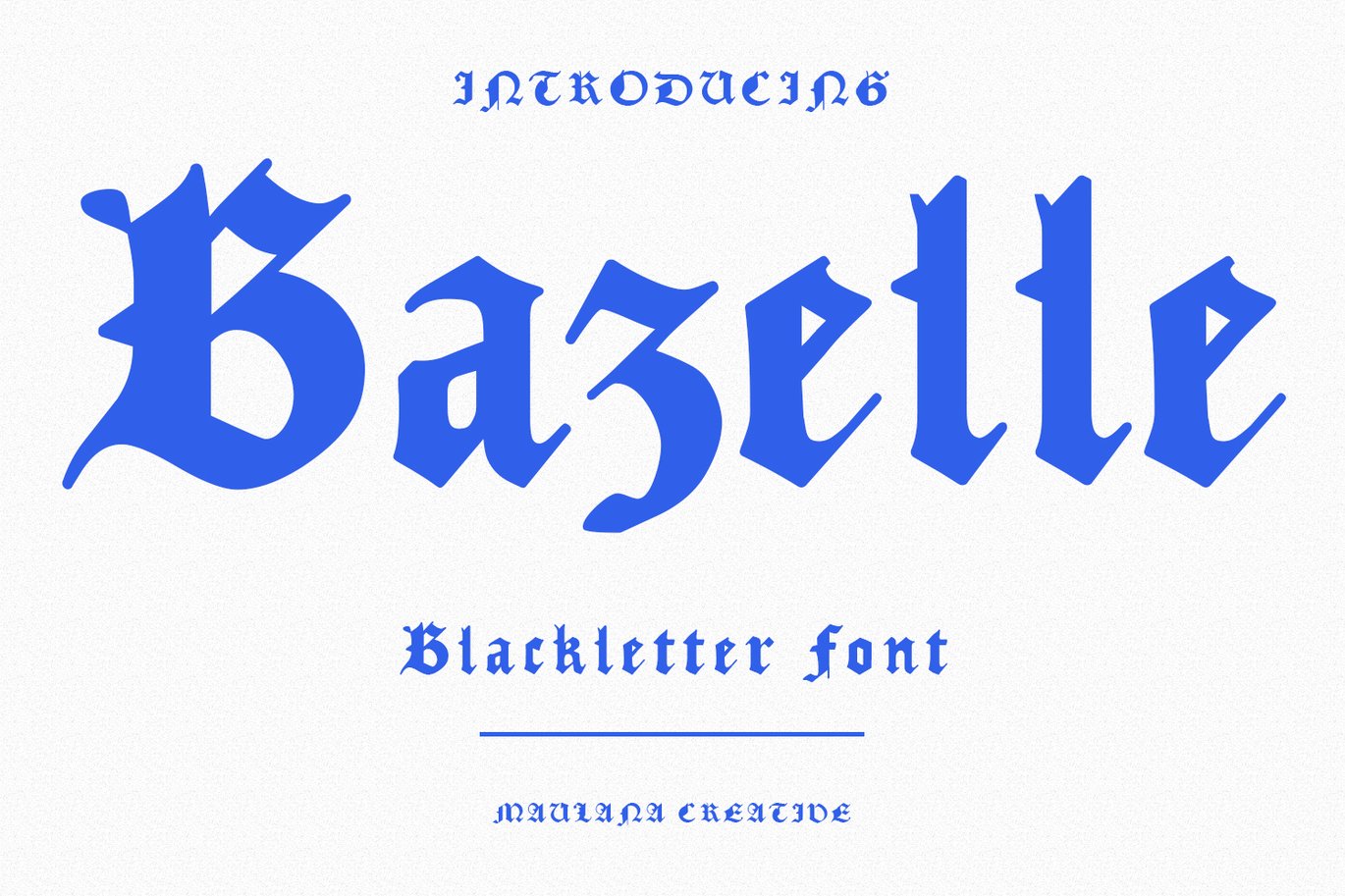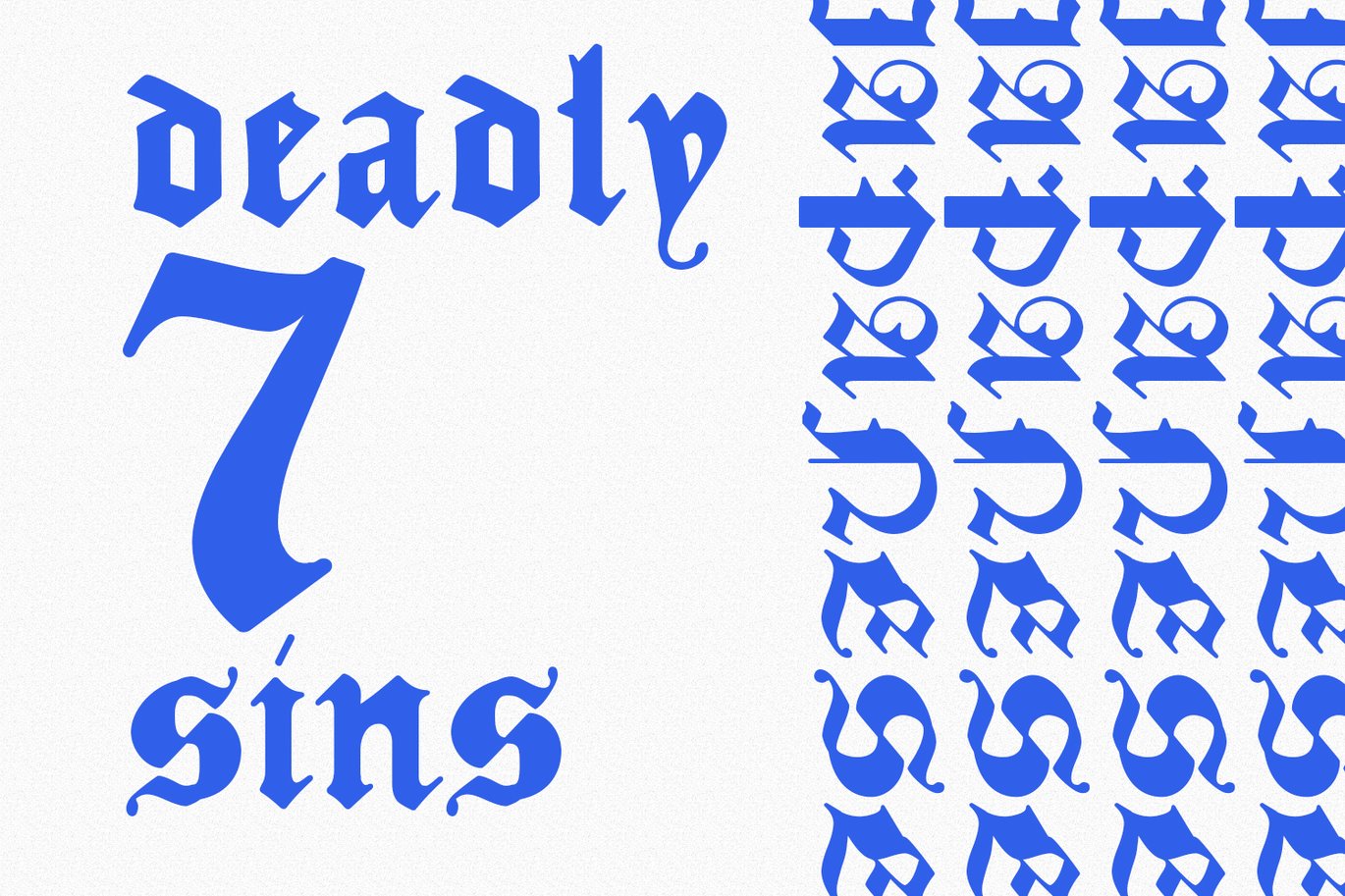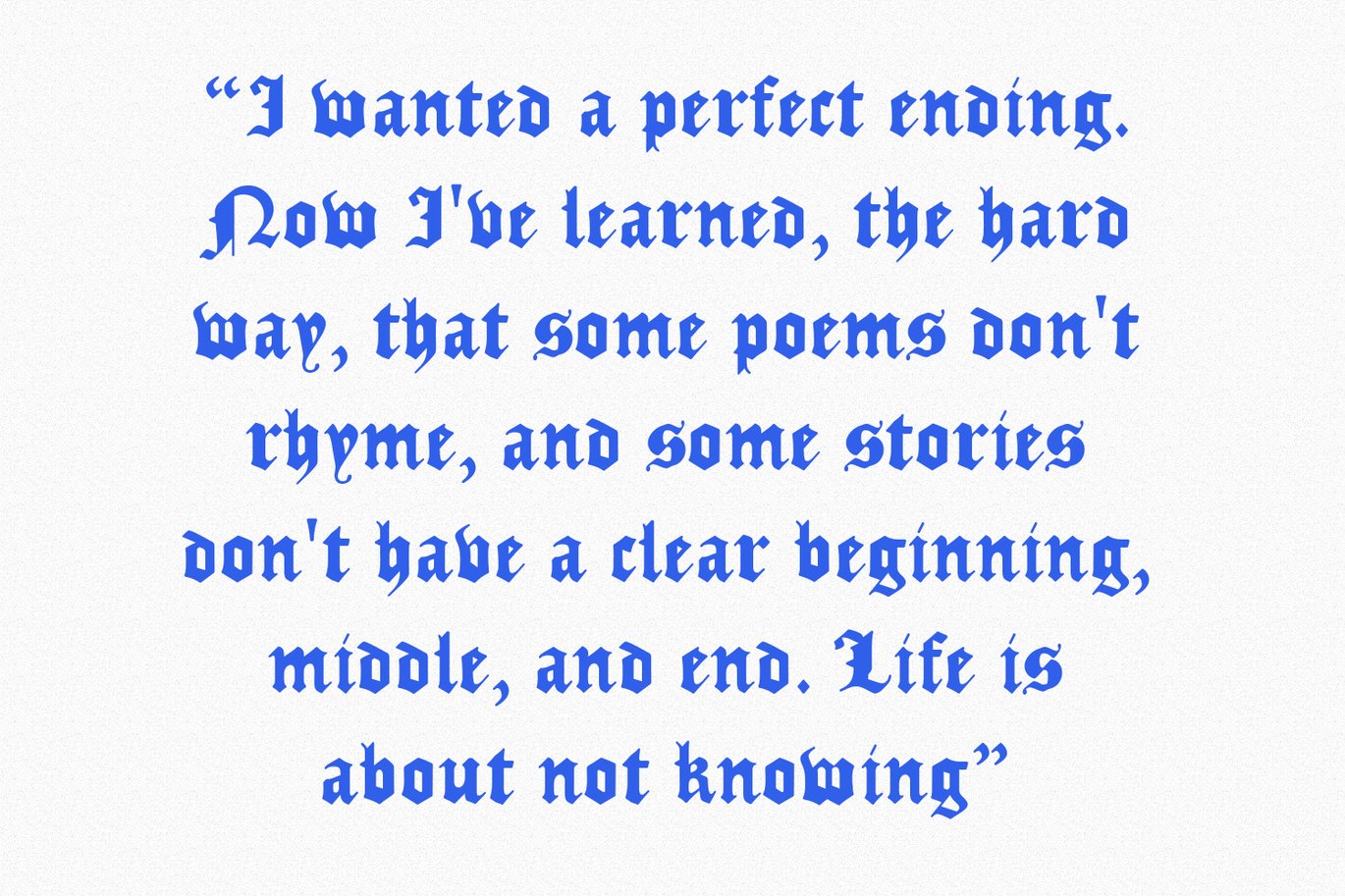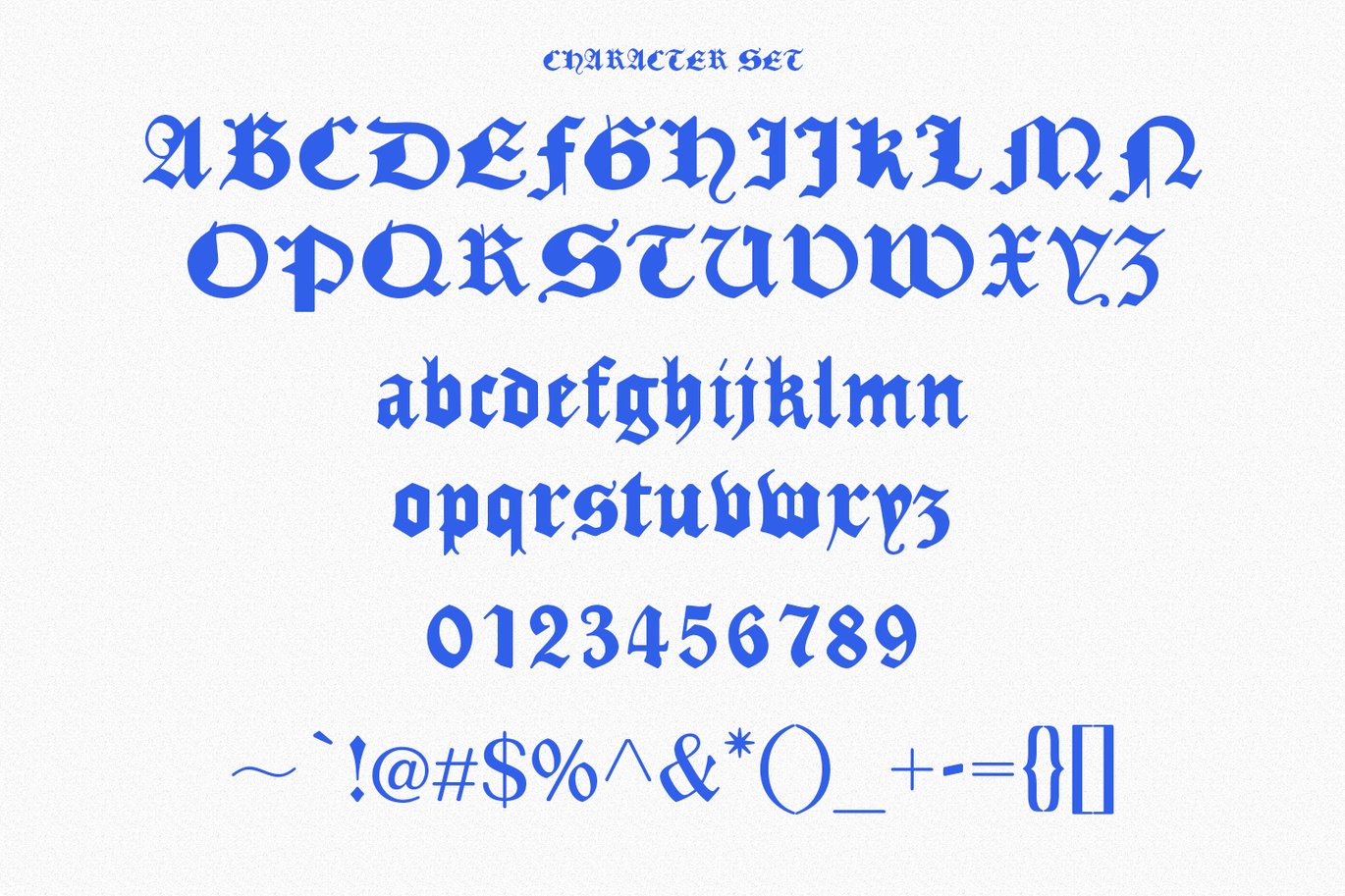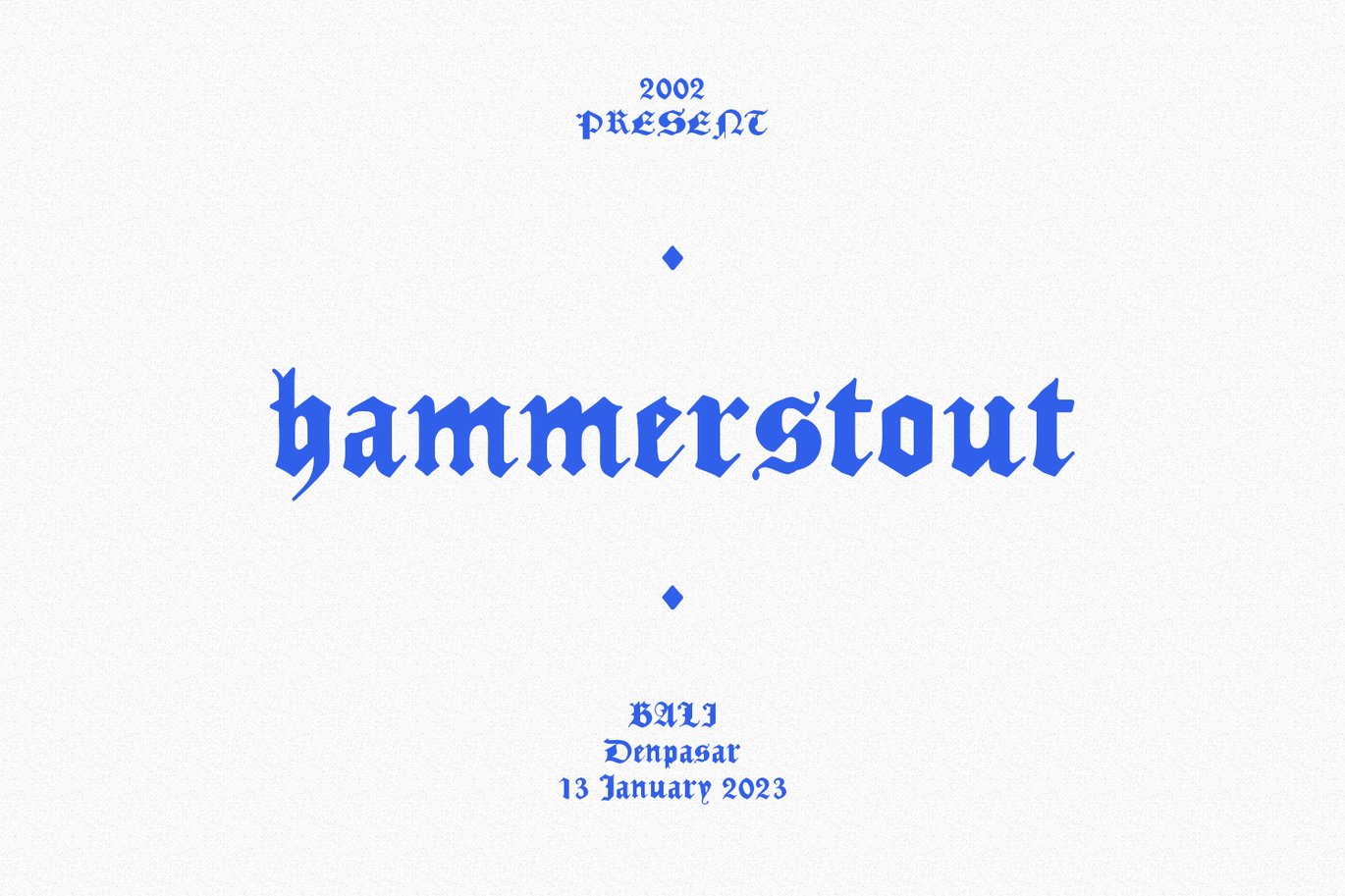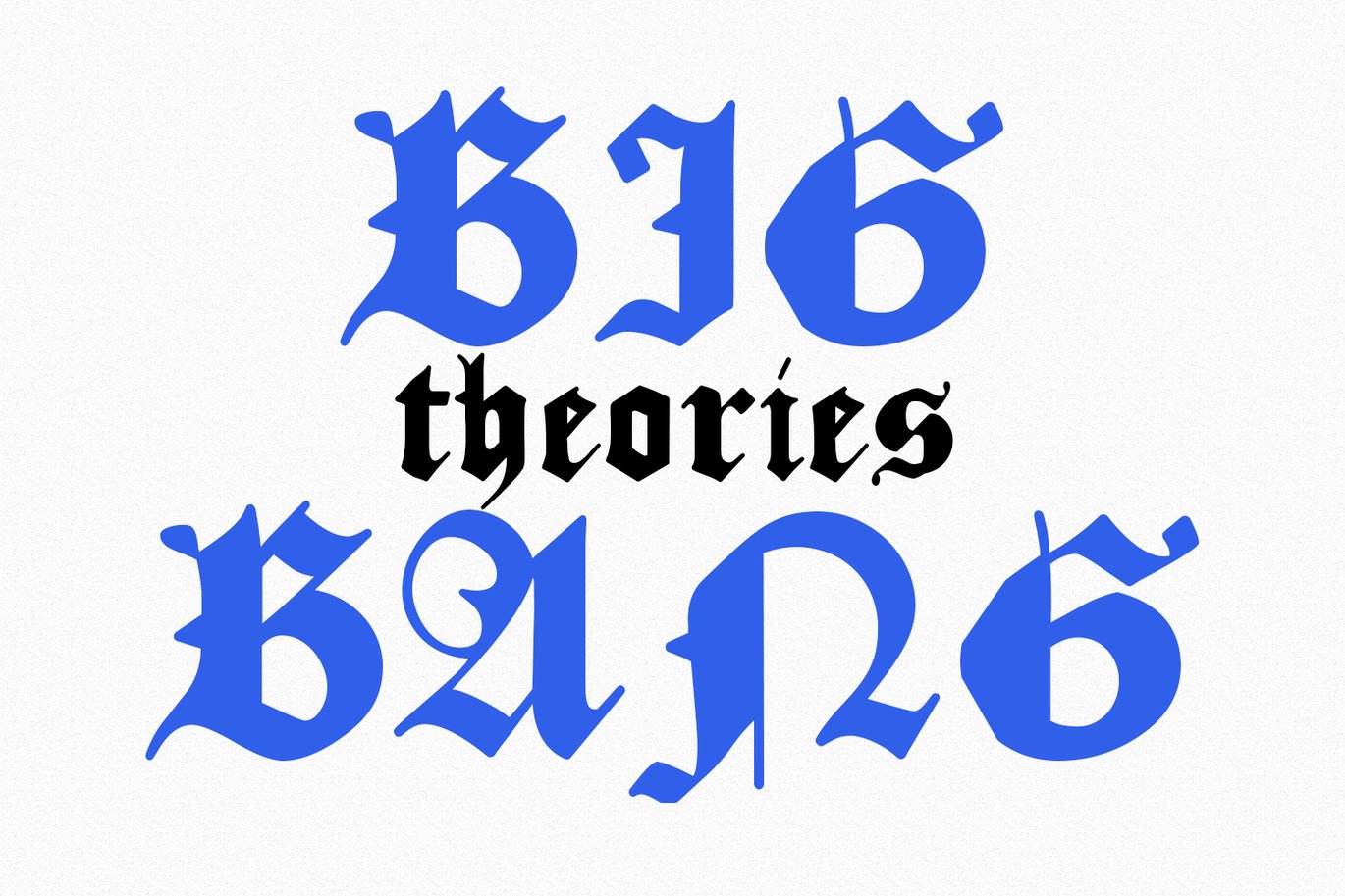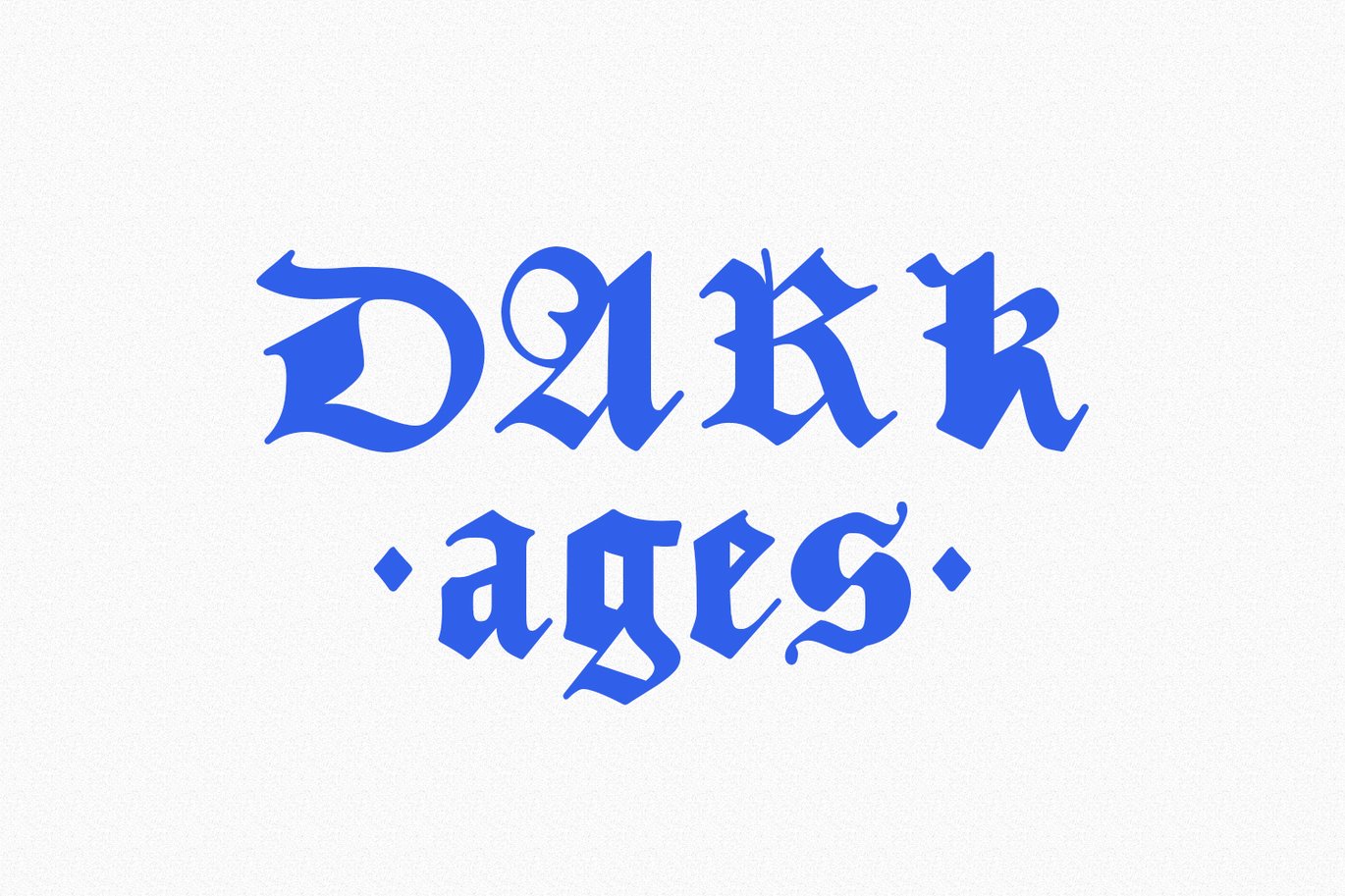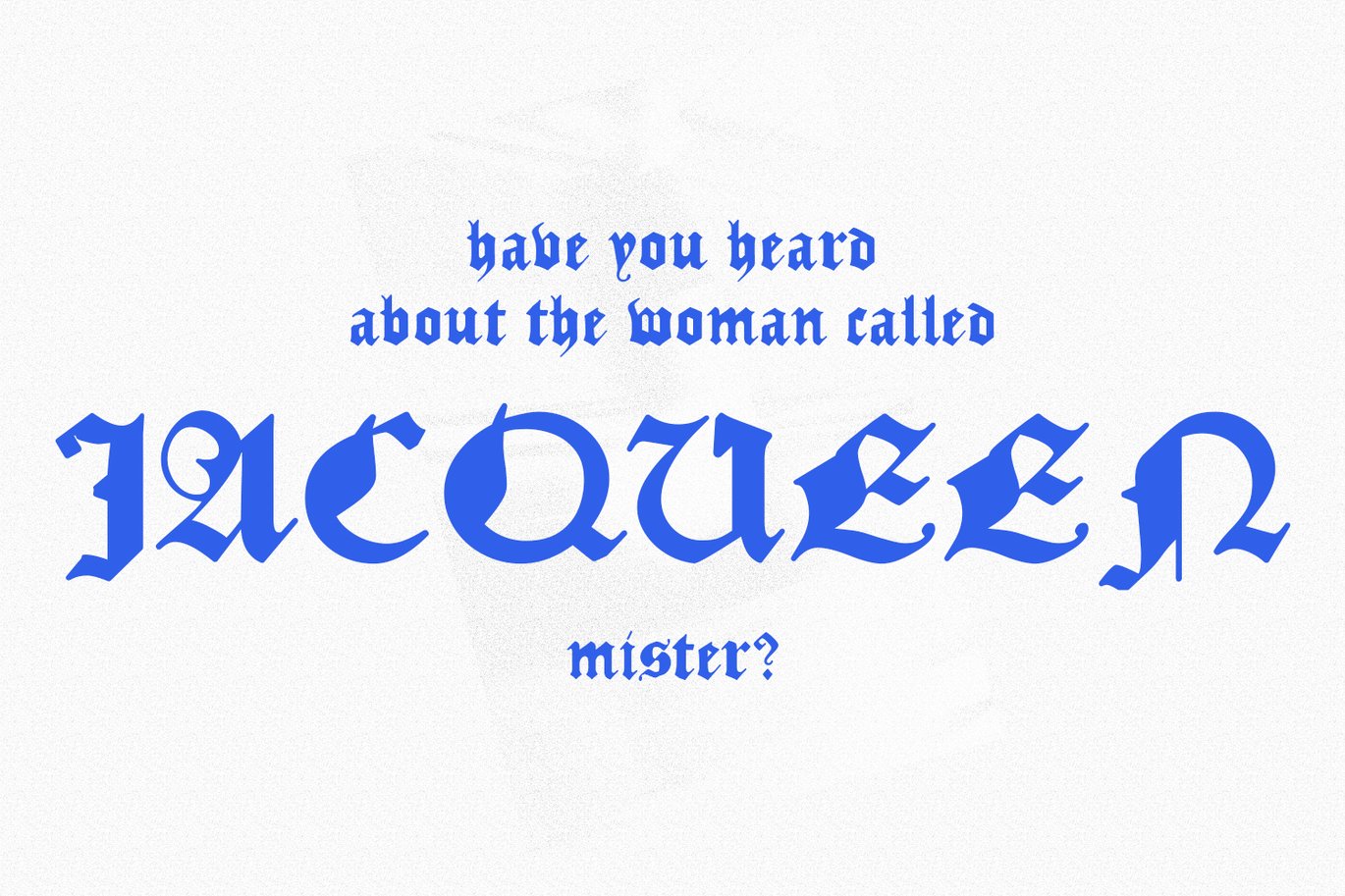
Bazelle Blackletter Font
Bazelle is a modern experimental blackletter font. With medium low contrast stroke, fun character with a bit of ligatures and alternates. To give you an extra creative work. Bazelle font support multilingual more than 100+ language. This font is good for logo design, Social media, Movie Titles, Books Titles, a short text even a long text letter and good for your secondary text font with sans or serif. Make a stunning work with Bazelle font.